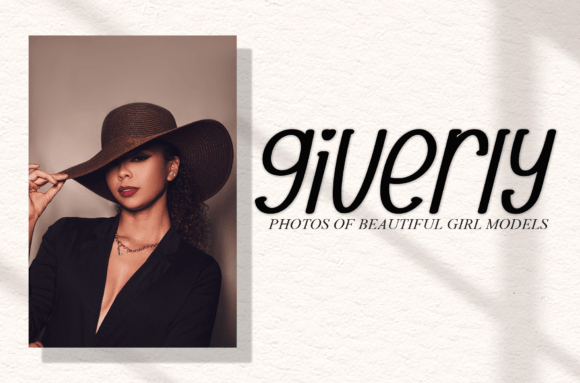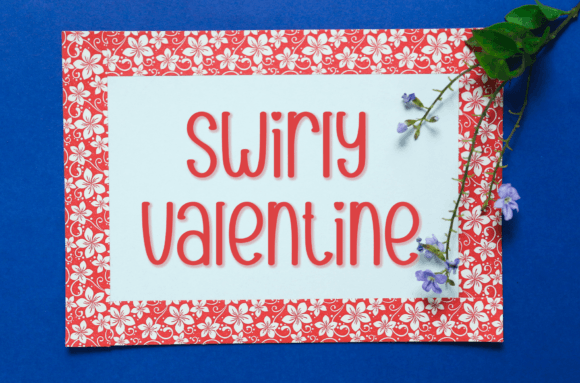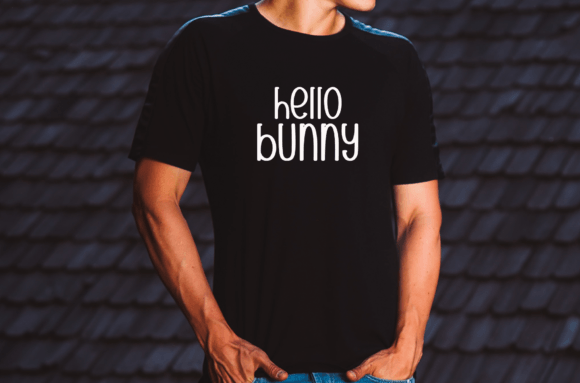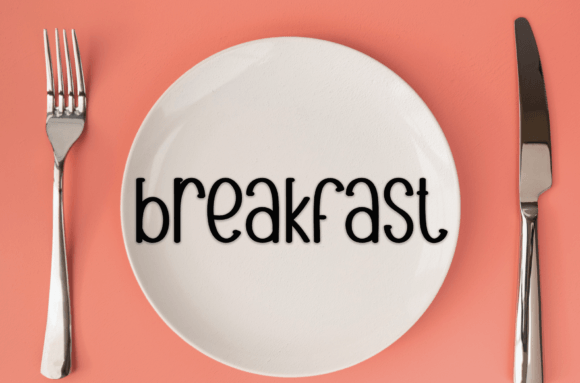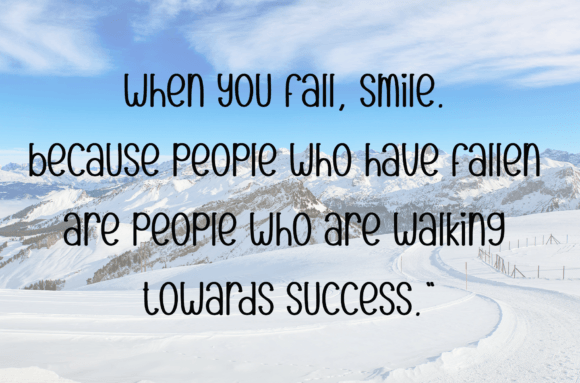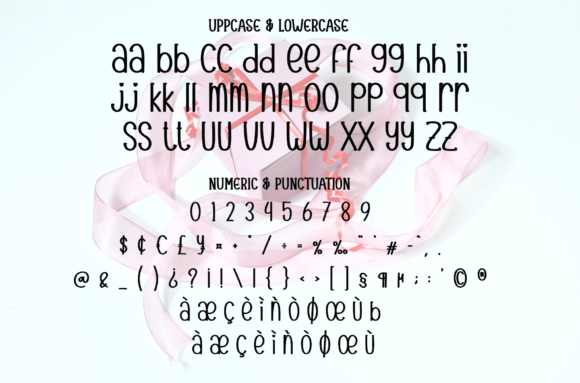
Introducing Give Better Font: The Sweet and Friendly Handwritten Font You Need
Are you tired of using the same old fonts for your designs? Do you want to add a touch of personality and whimsy to your projects? Look no further than Give Better Font, a sweet and friendly handwritten font that’s perfect for a variety of design applications. In this article, we’ll take a closer look at Give Better Font, its features, and how you can use it to elevate your designs.
What is Give Better Font?
Give Better Font is a beautiful, handwritten font that’s fresh, neat, and full of character. Its sweet and friendly vibe makes it ideal for designs that require a personal touch. Whether you’re creating wedding invitations, greeting cards, or any other type of design that needs a fun and playful twist, Give Better Font is the perfect choice.
Key Features of Give Better Font
So, what makes Give Better Font so special? Here are some of its key features:
- Handwritten with love: Give Better Font is a carefully crafted, handwritten font that’s designed to look like it was written with love and care.
- Fresh and neat: The font has a fresh, clean look that’s perfect for designs that require a bit of elegance and sophistication.
- Fun and playful: Give Better Font has a playful, whimsical vibe that’s sure to add a smile to anyone’s face.
- Versatile: This font is perfect for a wide range of design applications, from wedding invitations and greeting cards to posters, flyers, and more.
Use Cases for Give Better Font
Give Better Font is a versatile font that can be used in a variety of design applications. Here are some use cases to get you started:
- Wedding invitations: Add a touch of romance and whimsy to your wedding invitations with Give Better Font.
- Greeting cards: Create beautiful, one-of-a-kind greeting cards for birthdays, holidays, and other special occasions.
- Posters and flyers: Use Give Better Font to add a playful touch to your posters and flyers.
- Social media graphics: Add a personal touch to your social media graphics with Give Better Font.
Tips for Using Give Better Font
Here are some tips for getting the most out of Give Better Font:
- Pair it with other fonts: Give Better Font pairs well with other fonts, so don’t be afraid to experiment with different combinations.
- Use it in moderation: While Give Better Font is a beautiful font, it can be overwhelming if used too much. Use it in moderation to create visual interest.
- Experiment with colors: Give Better Font looks great in a variety of colors, so don’t be afraid to experiment with different color schemes.
In conclusion, Give Better Font is a sweet and friendly handwritten font that’s perfect for designers and crafters looking to add a touch of personality and whimsy to their designs. With its fresh, neat look and playful vibe, Give Better Font is ideal for a wide range of design applications, from wedding invitations and greeting cards to posters, flyers, and more. So why not give Give Better Font a try and see how it can elevate your designs?
Whether you’re a professional designer or a crafter looking for a unique font to use in your projects, Give Better Font is a great choice. Its versatility, playfulness, and charm make it a font that’s sure to delight. So go ahead, give Give Better Font a try, and see how it can add a touch of magic to your designs!